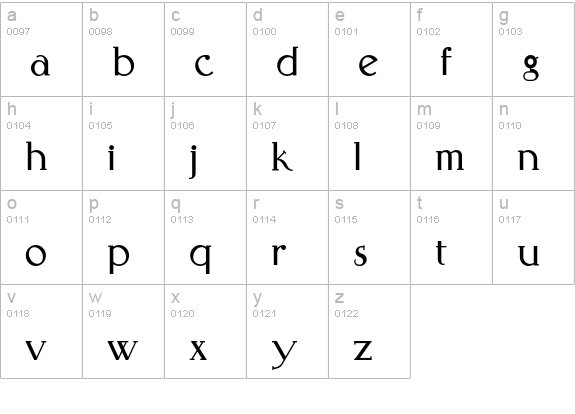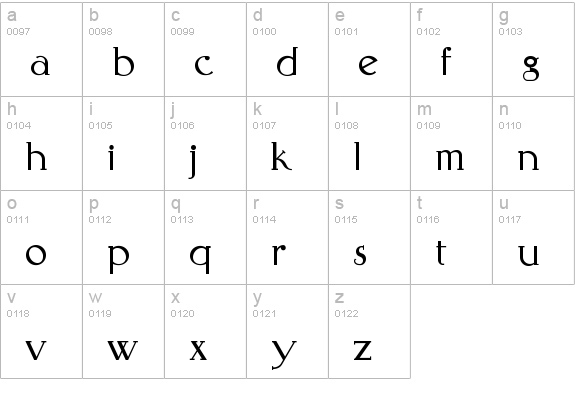
PT FaRer Cyrillic Font Details
The PT FaRer Cyrillic font is a stunning display typeface that exudes elegance and sophistication. With its unique design and intricate details, this font is perfect for adding a touch of class to any project or design. The Cyrillic characters in this font are beautifully crafted, making it ideal for projects that require a touch of Russian or Slavic influence. What makes the PT FaRer Cyrillic font even more appealing is that it is available for free download at FontsMarket.com. This means that you can easily access this exquisite font and use it in your projects without any cost. Whether you're working on a branding project, a poster design, or a website layout, the PT FaRer Cyrillic font will surely elevate your work and make it stand out. Don't miss out on the opportunity to enhance your designs with this elegant and versatile font. Download the PT FaRer Cyrillic font for free today and add a touch of sophistication to your projects.